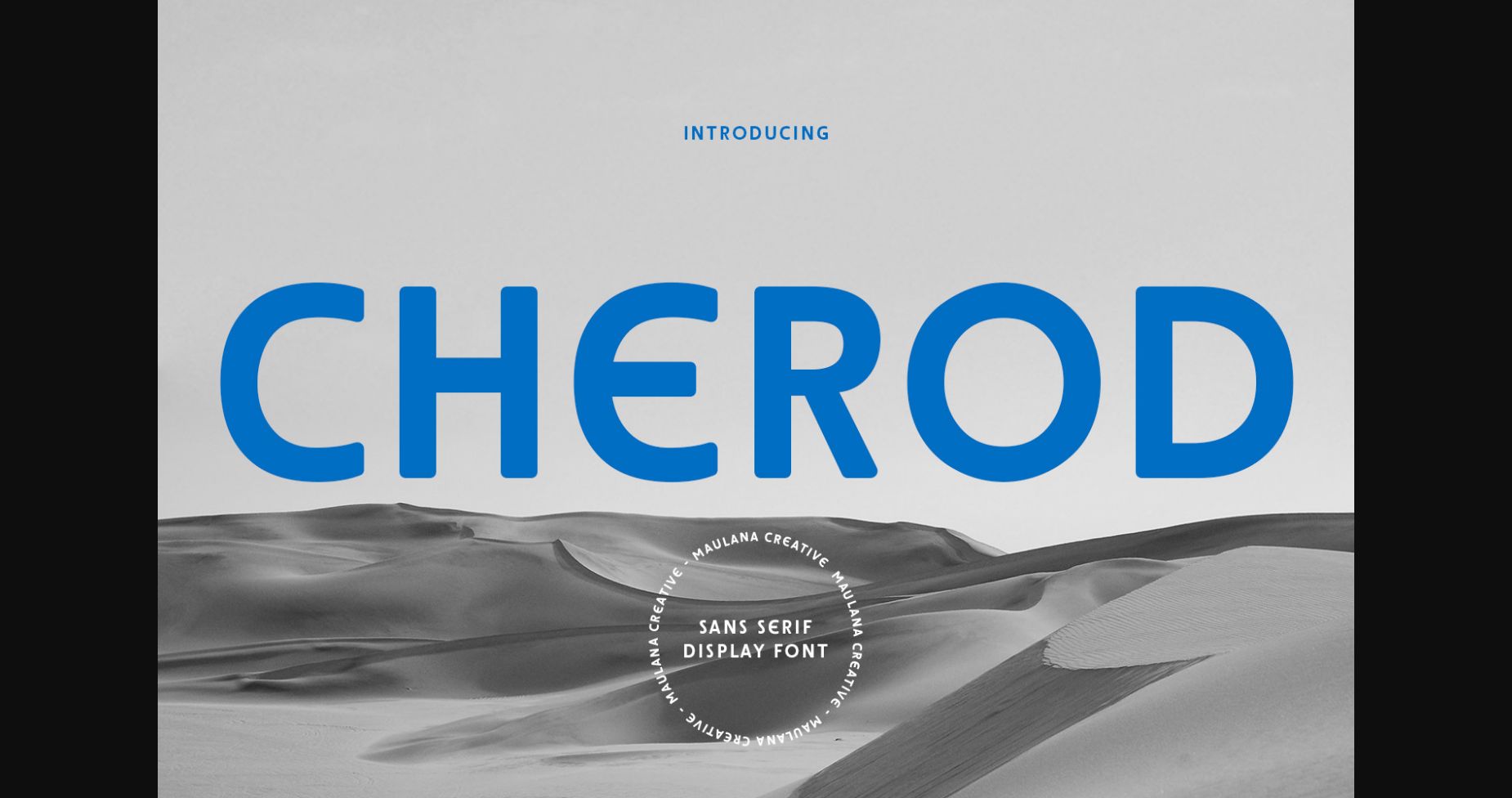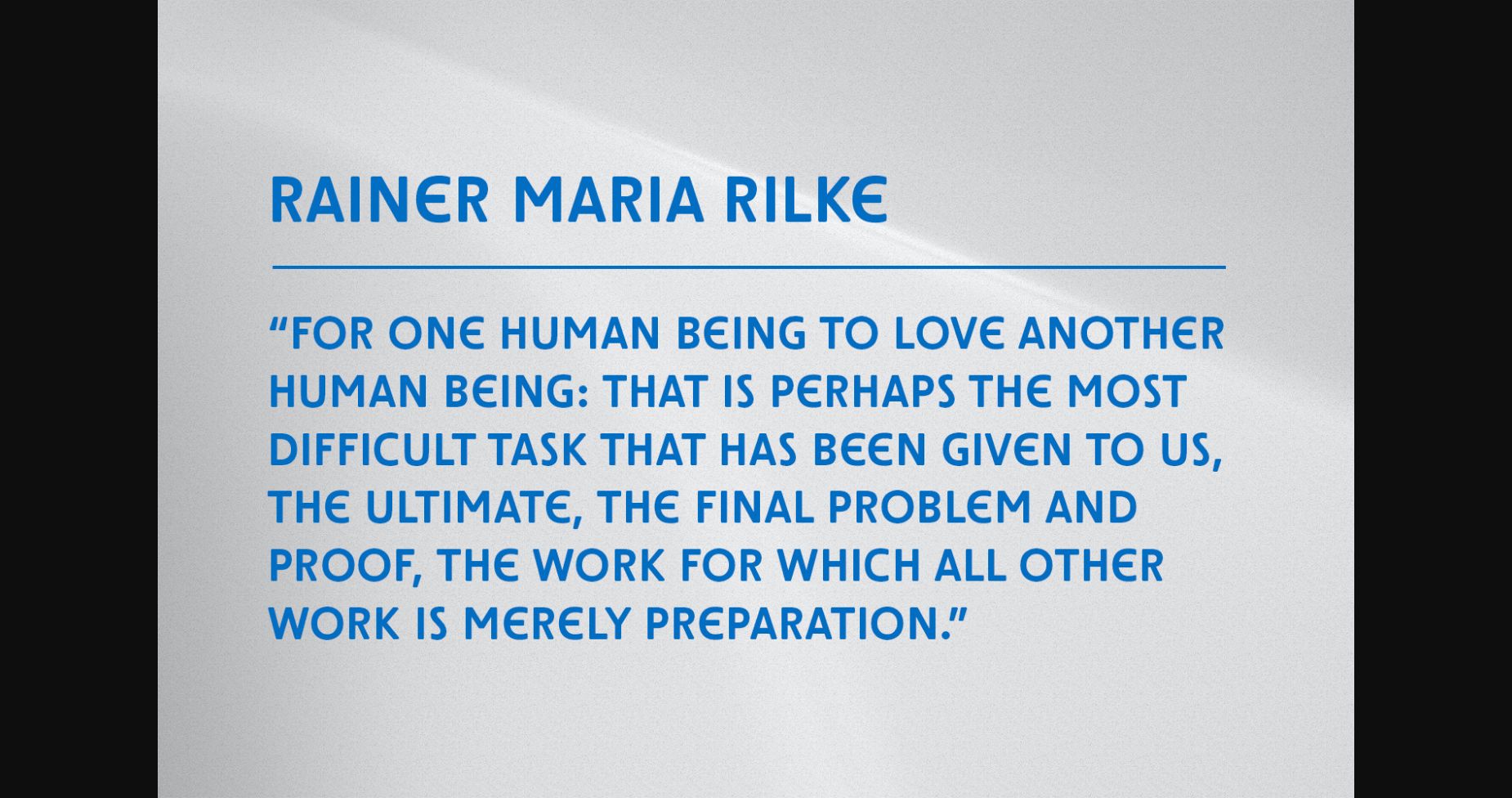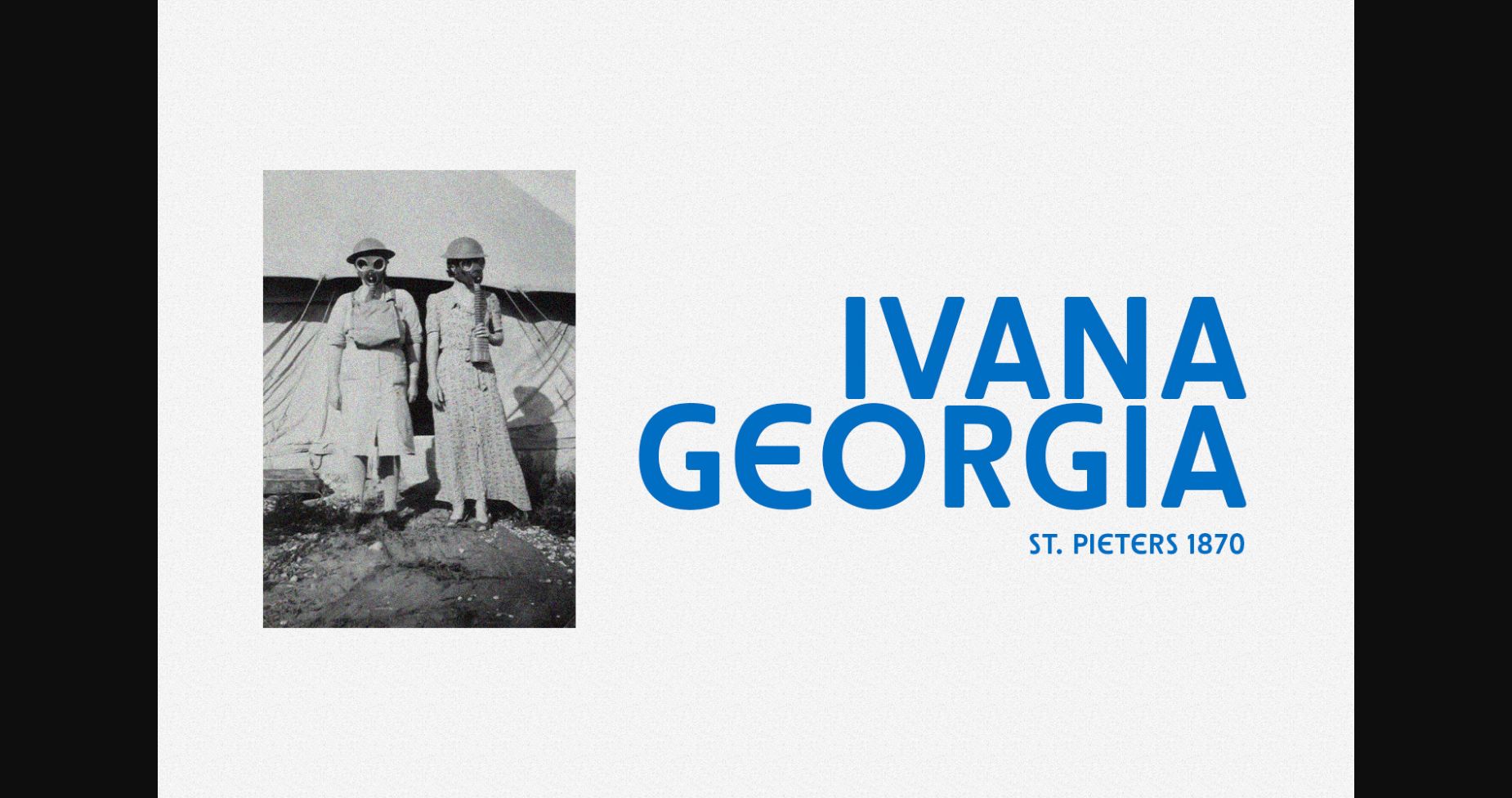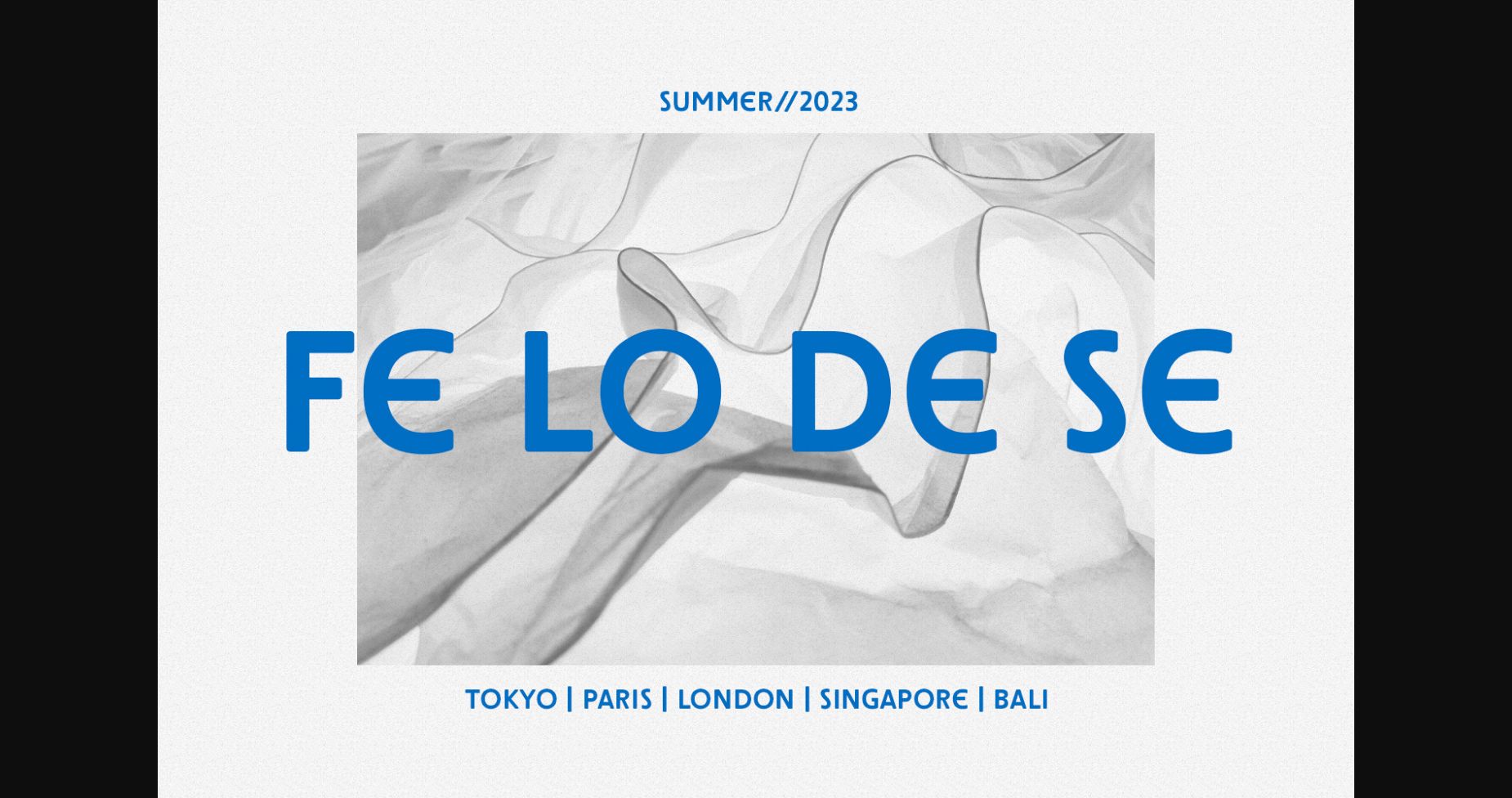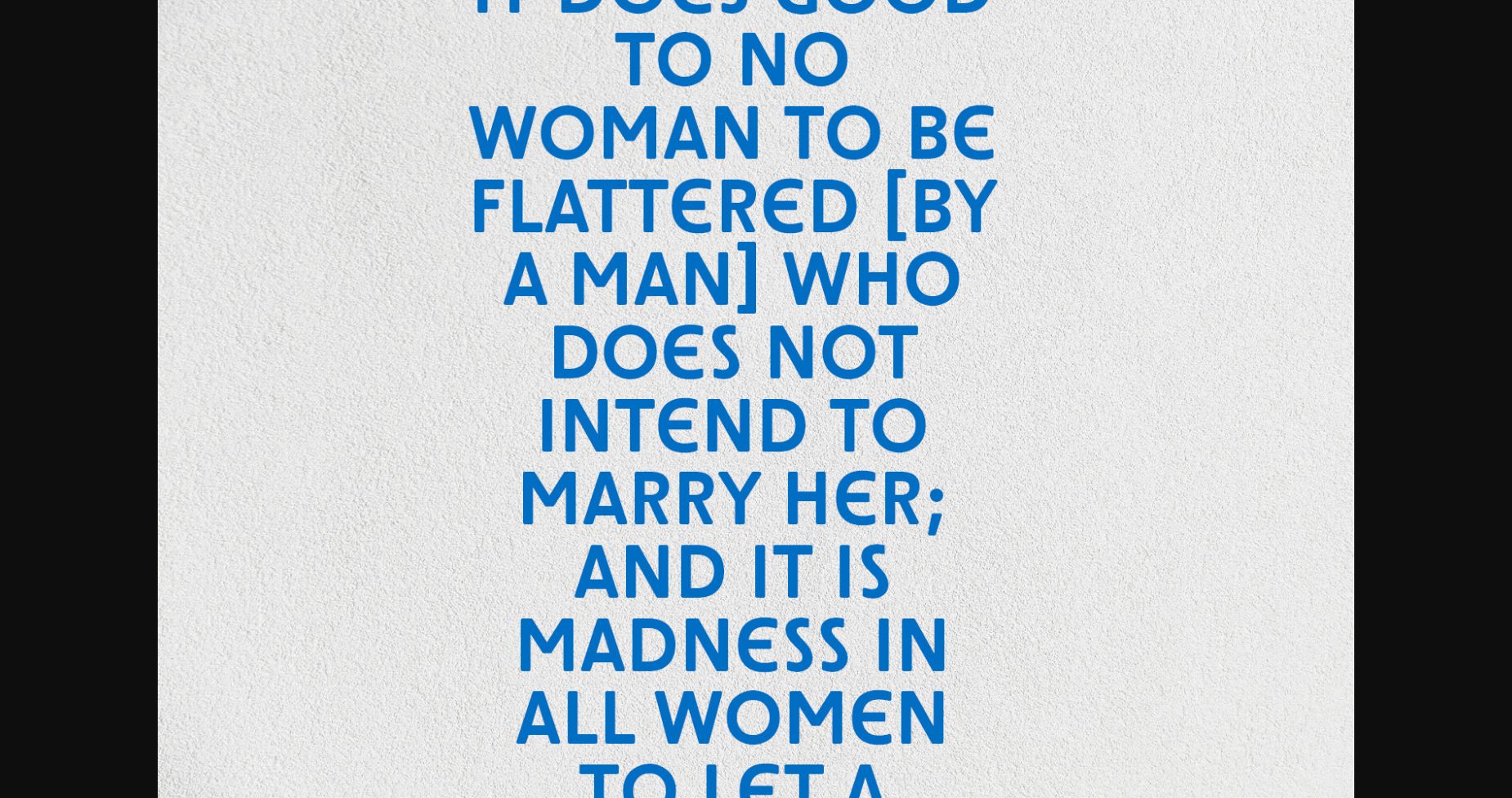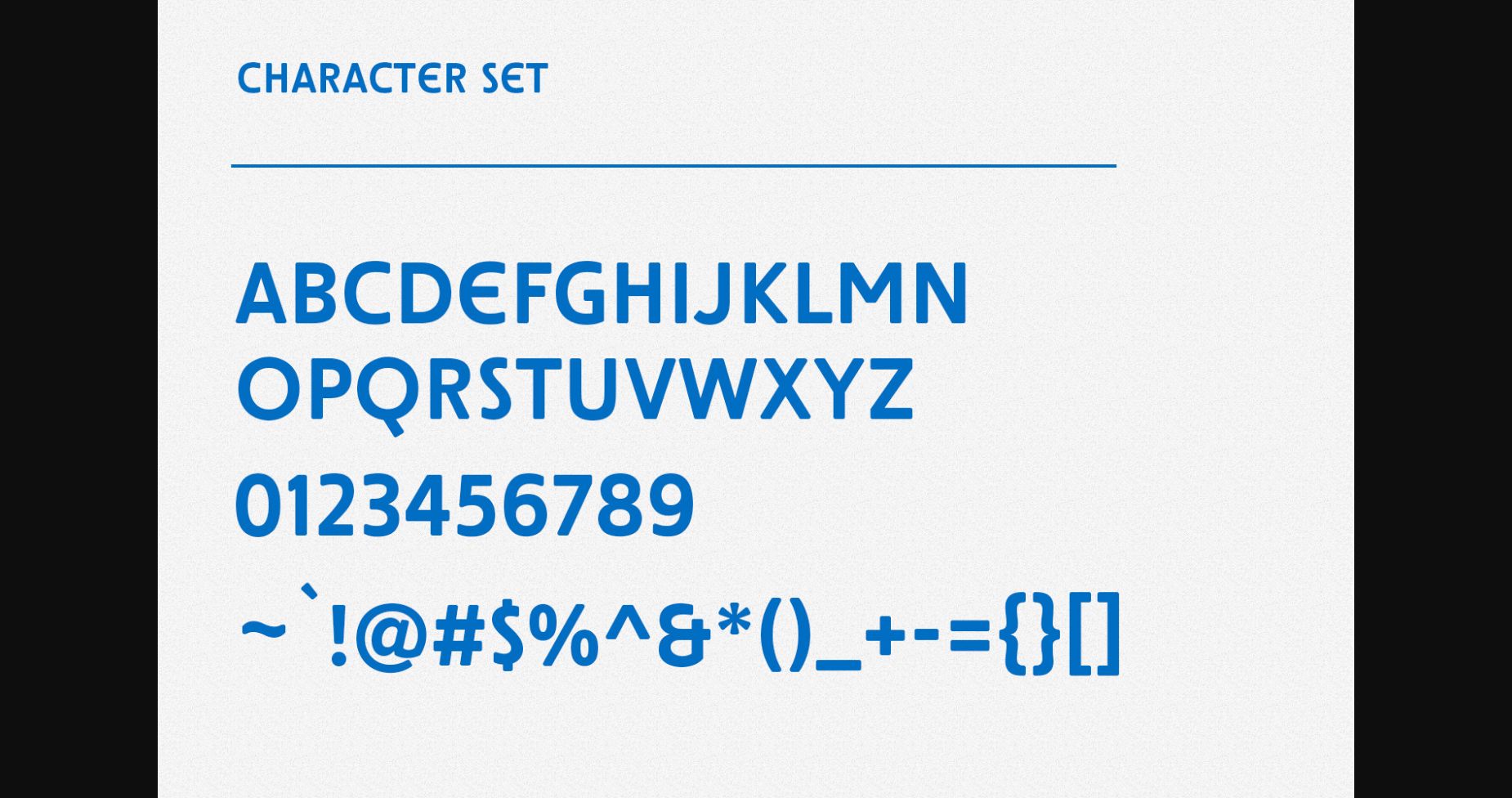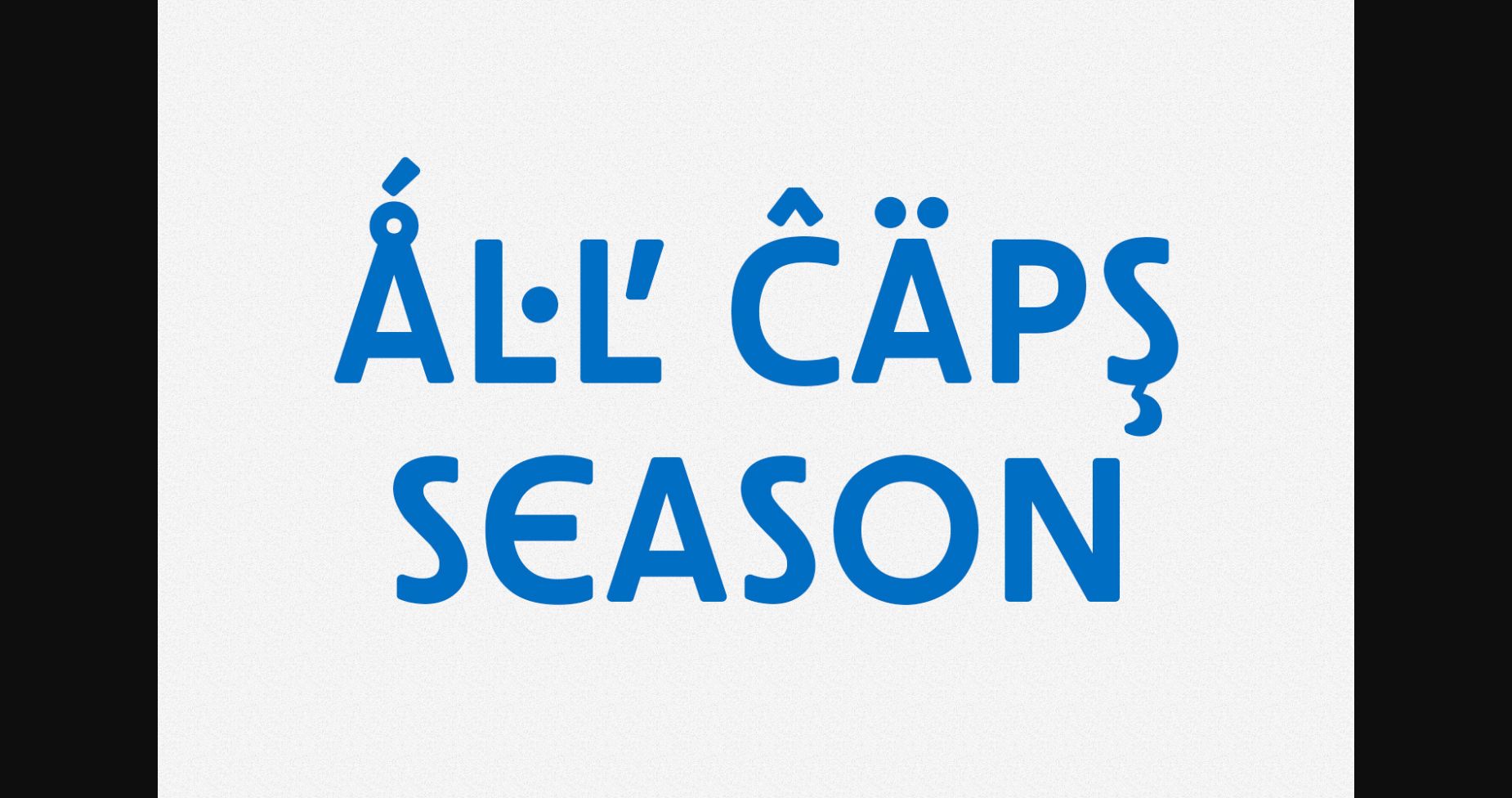
Cherod Font
About Cherod Font
Cherod is a timeless and elegant all-caps sans serif font that exudes sophistication and clarity. Its clean and minimalist characters are designed with even stroke widths, creating a sense of balance and harmony. The letters are straight and upright, giving it a formal and professional appearance that is perfect for any project requiring a classic and refined style. This font is ideal for creating strong headlines, logos, and branding, as it commands attention while remaining understated and timeless. Cherod is a font that is sure to make a lasting impression.